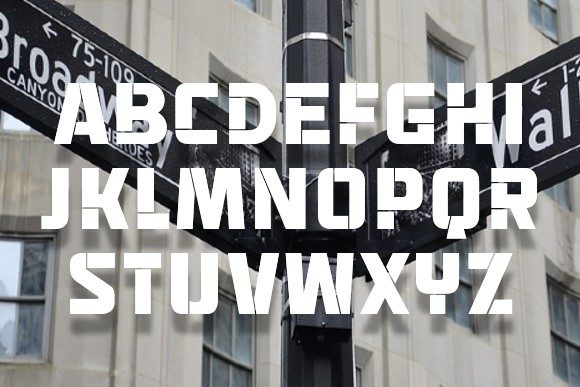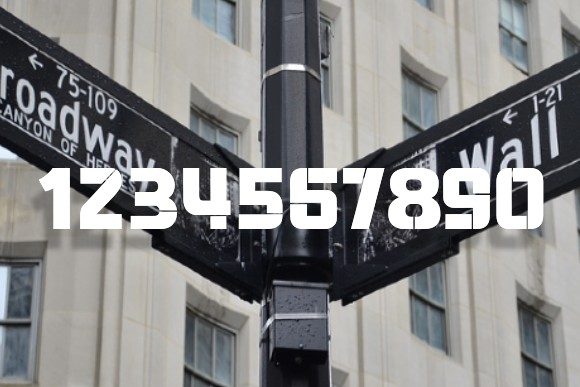
Introduction to Redemtion Font
Redemtion is a modern stencil typeface that will fit any of your designs.
Use this font on banners, headlines, and t-shirts .